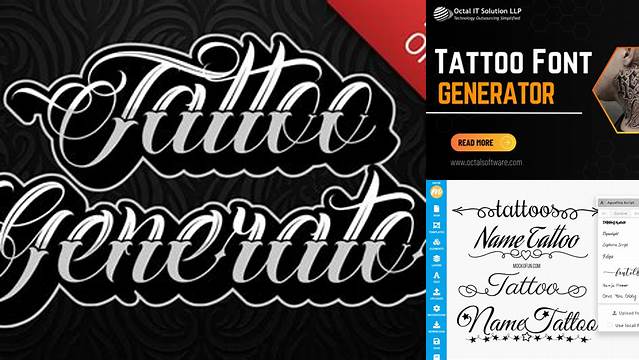
Best Free Tattoo Font Generator: Designs & Ideas
Hey guys! Finding the perfect tattoo font can be a real mission, right? You want something that screams you, that vibes with your personality, and, of course, looks killer on your skin. Luckily, you don't have to break the bank to find amazing options. There are tons of best free tattoo font generators out there that can help you visualize your ink dreams before you even step into the tattoo parlor. This article is your guide to navigating the world of free tattoo fonts, giving you the lowdown on where to find them, how to use them, and some creative ideas to get your inspiration flowing. So, buckle up and let's dive in!
Tattoo Font Generators: An Overview
Okay, so what exactly is a tattoo font generator? Basically, it's an online tool that lets you type in your desired text and then displays it in a variety of different fonts that are suitable for tattoos. Think of it like a virtual tattoo artist, letting you experiment with styles until you find the perfect match. Many best free tattoo font generators offer a wide range of font styles, from classic script to bold gothic, and even unique, hand-drawn styles. The best part? You can usually download the font image for free to show your tattoo artist. This ensures everyone is on the same page before the needle hits the skin. Plus, playing around with these generators is just plain fun! You can try out different names, quotes, or designs to see what resonates with you the most. It's a great way to get creative and explore your tattoo ideas without any commitment. So, get ready to unleash your inner artist and find the best free tattoo font for your next ink adventure! Why settle for ordinary when you can have extraordinary?
Free Tattoo Font Websites
Alright, let's talk about where to find these awesome best free tattoo font generators. There are several websites dedicated to providing a wide selection of tattoo-friendly fonts that you can use without spending a dime. Websites like DaFont, 1001 Free Fonts, and FontSpace are excellent resources. These sites have a vast library of fonts, many of which are specifically tagged or categorized as tattoo fonts. When browsing these sites, be sure to use keywords like "tattoo," "script," "gothic," or "tribal" to narrow down your search and find fonts that match your desired style. Always check the license of each font before using it commercially, just to be on the safe side. Most fonts are free for personal use, but some may require a license for commercial purposes. Each website offers a unique selection of fonts, so it's worth exploring multiple sites to find the perfect fit for your tattoo design. Many of these sites also allow you to preview the font by typing in your text, making it easy to see how your tattoo will look. So, start exploring and discover the endless possibilities for your next tattoo! Remember, the best free tattoo font is out there waiting to be found, so happy hunting!
Script Tattoo Fonts
Script fonts are a super popular choice for tattoos, especially for names, quotes, or meaningful phrases. There's something timeless and elegant about a beautifully written script. When choosing a script font, think about the overall vibe you're going for. Are you looking for something delicate and flowing, or something with a bit more edge and flair? Some popular script styles include calligraphy, cursive, and handwritten fonts. Calligraphy fonts tend to be very ornate and formal, while cursive fonts offer a more relaxed and approachable feel. Handwritten fonts, on the other hand, can range from playful and whimsical to sophisticated and refined. One of the best free tattoo font generator options for script fonts is Before the Rain. This font has a light touch and has thin lines that will require expertise from your tattoo artist. Honey Script is a fancy-looking font with heart details, making it one of the cutest choices if you want something fancy. No matter what style you choose, make sure the font is legible and easy to read, especially if your tattoo is small or intricate. The best free tattoo font should not only look good but also stand the test of time. So, take your time, experiment with different options, and find a script font that truly speaks to you!
Gothic Tattoo Fonts
For those who want to make a bold statement, gothic fonts are an excellent choice. These fonts are characterized by their strong, angular lines and often evoke a sense of mystery and power. Gothic fonts are perfect for adding a touch of drama and intensity to your tattoo design. They work well for single words, initials, or short phrases. When choosing a gothic font, consider the overall size and placement of your tattoo. Larger tattoos can handle more intricate and detailed gothic fonts, while smaller tattoos may require a simpler and more streamlined design. Some popular gothic styles include blackletter, old English, and medieval fonts. Blackletter fonts are known for their thick, heavy strokes, while old English fonts offer a more classic and refined look. Medieval fonts often incorporate ornate details and flourishes, adding a touch of historical flair. The best free tattoo font generator for this category might include fonts like Tribal, which is a classic choice that is also a perfect match for your tattoo. Ultimately, the best free tattoo font in gothic style will depend on your personal preferences and the overall aesthetic you're aiming for. So, explore different options and find a gothic font that truly captures your vision!
Old School Tattoo Fonts
Old school tattoo fonts are a nod to the classic designs that have been around for decades. These fonts are characterized by their bold lines, simple shapes, and timeless appeal. Old school fonts are perfect for adding a touch of nostalgia and authenticity to your tattoo design. They often feature elements like banners, ribbons, and nautical stars, which are iconic symbols of traditional tattoo art. When choosing an old school font, think about the overall theme and style of your tattoo. Some popular old school styles include traditional American, sailor jerry, and vintage circus fonts. Traditional American fonts are known for their clean, bold lines and classic lettering. Sailor Jerry fonts often incorporate nautical themes and imagery, while vintage circus fonts evoke a sense of fun and whimsy. To find the best free tattoo font generator for old school designs, you might check fonts such as VTC Letterer Pro, a font that brings up the classic vintage lettering and is known for its bold strokes. The best free tattoo font in old school style will add a touch of timeless appeal to your tattoo.
Calligraphy Tattoo Fonts
Calligraphy fonts bring a touch of elegance and artistry to your tattoo. These fonts are inspired by the art of beautiful writing and feature flowing lines, delicate strokes, and graceful curves. Calligraphy fonts are perfect for adding a personal and sophisticated touch to your tattoo design. They work well for names, quotes, or meaningful phrases that you want to express with style and flair. When choosing a calligraphy font, consider the overall size and placement of your tattoo. Larger tattoos can handle more intricate and elaborate calligraphy fonts, while smaller tattoos may require a simpler and more streamlined design. Some popular calligraphy styles include Spencerian, Copperplate, and Italic. Spencerian fonts are known for their elegant and flowing lines, while Copperplate fonts offer a more formal and refined look. Italic fonts provide a slanted and stylish appearance. Your best free tattoo font generator options will include ones that let you preview many calligraphy styles. The best free tattoo font in calligraphy style should not only look beautiful but also reflect your unique personality and taste.
Cursive Tattoo Fonts
Cursive fonts are a popular choice for tattoos, known for their flowing and connected letters that create a sense of movement and grace. These fonts are perfect for adding a personal and intimate touch to your tattoo design. Cursive fonts work well for names, quotes, or meaningful phrases that you want to express in a stylish and elegant way. When choosing a cursive font, consider the overall legibility and readability of the design. While some cursive fonts can be highly ornate and decorative, it's important to ensure that the letters are still clear and easy to understand. Some popular cursive styles include script, handwriting, and signature fonts. Script fonts offer a classic and timeless look, while handwriting fonts provide a more casual and personal feel. Signature fonts are designed to mimic the look of a handwritten signature, adding a unique and authentic touch. Find your best free tattoo font generator, and it should give you varied cursive font options, allowing you to see what feels best. The best free tattoo font in cursive should not only look beautiful but also convey your message clearly and effectively.
Tribal Tattoo Fonts
Tribal tattoo fonts are inspired by the ancient and traditional designs of various cultures around the world. These fonts often feature bold lines, geometric shapes, and intricate patterns that evoke a sense of strength, heritage, and connection to the earth. Tribal fonts are perfect for adding a unique and meaningful touch to your tattoo design. They work well for those who want to express their cultural roots, spiritual beliefs, or personal identity. When choosing a tribal font, consider the overall symbolism and meaning of the design. Different tribal patterns and symbols can represent different things, so it's important to choose a font that resonates with your values and beliefs. Some popular tribal styles include Polynesian, Maori, and Celtic fonts. Polynesian fonts often feature flowing lines and organic shapes, while Maori fonts are known for their intricate spirals and curves. Celtic fonts incorporate knotwork patterns and interlacing designs. A best free tattoo font generator should help you narrow down the tribal font that speaks to you. The best free tattoo font in tribal style should not only look visually striking but also carry a deep and personal significance.
Number Tattoo Fonts
Number tattoo fonts are a great way to commemorate dates, anniversaries, or significant numbers in your life. These fonts can be used to create a minimalist and meaningful tattoo design that holds personal significance. Number fonts come in a variety of styles, from classic and traditional to modern and contemporary. When choosing a number font, consider the overall aesthetic and style of your tattoo. Do you want something simple and understated, or something more bold and eye-catching? Some popular number styles include Roman numerals, block numbers, and handwritten numbers. Roman numerals offer a timeless and elegant look, while block numbers provide a more modern and industrial feel. Handwritten numbers can add a personal and intimate touch to your tattoo. With the best free tattoo font generator, you can customize the look of your numbers. The best free tattoo font should be stylish and meaningful.
Lettering Tattoo Fonts
Lettering tattoo fonts are the foundation of any text-based tattoo design. These fonts come in a wide variety of styles, from classic and elegant to bold and modern. Choosing the right lettering font is crucial for ensuring that your tattoo looks its best and conveys your message effectively. When selecting a lettering font, consider the overall size and placement of your tattoo. Larger tattoos can handle more intricate and detailed fonts, while smaller tattoos may require a simpler and more streamlined design. Some popular lettering styles include serif, sans-serif, and display fonts. Serif fonts feature small decorative strokes at the ends of the letters, while sans-serif fonts have a cleaner and more modern look. Display fonts are designed to be eye-catching and attention-grabbing. Your best free tattoo font generator should offer you many lettering options. The best free tattoo font should enhance the overall design.
Custom Tattoo Fonts
If you're looking for something truly unique and personalized, consider creating a custom tattoo font. Designing your own font allows you to express your individual style and create a tattoo that is one-of-a-kind. Custom fonts can be created using font design software or by collaborating with a professional designer. When designing a custom font, consider the overall theme and message of your tattoo. What kind of feeling or emotion do you want to evoke? What kind of style are you aiming for? Think about the shapes, lines, and curves that you want to incorporate into your font. Experiment with different ideas and techniques until you find a design that you love. While a best free tattoo font generator might not create a fully custom font, it can help you get inspiration. The best free tattoo font is one that’s uniquely yours.
Tattoo Font Styles
Exploring different tattoo font styles is a great way to discover the perfect look for your ink. Whether you prefer classic elegance, bold statements, or something in between, there's a font style out there that matches your personality and vision. From script and gothic to old school and tribal, the possibilities are endless. Take your time to browse through different styles and see what resonates with you. Consider the overall theme and message of your tattoo, and choose a font style that complements it perfectly. The best free tattoo font generator should offer a wide array of styles. The best free tattoo font will elevate your tattoo to the next level.
Tattoo Font Ideas
Need some inspiration for your next tattoo? Check out these creative tattoo font ideas: names of loved ones, meaningful quotes, inspirational words, important dates, personal mantras, song lyrics, book excerpts, movie lines, and inside jokes. The possibilities are truly endless. Consider the placement of your tattoo and choose a font that fits well within that space. Experiment with different font sizes and layouts to find a design that you love. The best free tattoo font generator can help you visualize your ideas. The best free tattoo font can transform a simple idea into a stunning piece of art.
Tattoo Font Design
The design of your tattoo font is just as important as the font itself. Consider the spacing, kerning, and leading of your letters to ensure that your tattoo is legible and visually appealing. Experiment with different font weights and styles to create a unique and eye-catching design. Think about adding decorative elements, such as flourishes, banners, or symbols, to enhance the overall look of your tattoo. The best free tattoo font generator can help you experiment with these elements. The best free tattoo font is one that’s been thoughtfully designed.
Matching Tattoo Fonts
Matching tattoos are a popular way to celebrate a special bond with a loved one, whether it's a friend, family member, or partner. When choosing matching tattoo fonts, consider a design that represents your shared connection and values. Think about using the same font for both tattoos, or choosing complementary fonts that work well together. Consider incorporating meaningful symbols or elements into your design to further personalize your matching tattoos. The best free tattoo font generator can help you find fonts that complement each other. The best free tattoo font can create a lasting symbol of your bond.
Small Tattoo Fonts
Small tattoos require careful consideration when it comes to font choice. Choose a font that is legible and easy to read, even when it's small. Avoid fonts with overly intricate or decorative details, as these may become blurred or illegible over time. Opt for simpler and more streamlined fonts that will stand the test of time. Consider the placement of your small tattoo and choose a font that fits well within that space. The best free tattoo font generator can help you find fonts that work well at small sizes. The best free tattoo font will make your small tattoo stand out.
Bold Tattoo Fonts
Bold tattoo fonts are a great way to make a statement and draw attention to your ink. These fonts are characterized by their thick, heavy strokes and strong visual presence. Bold fonts are perfect for adding emphasis to important words, phrases, or symbols in your tattoo design. When choosing a bold font, consider the overall size and placement of your tattoo. Larger tattoos can handle more dramatic and impactful bold fonts, while smaller tattoos may require a more restrained approach. The best free tattoo font generator can help you visualize how bold fonts will look on your skin. The best free tattoo font will ensure your message is heard loud and clear.
Legible Tattoo Fonts
Legibility is key when it comes to tattoo fonts. Choose a font that is easy to read and understand, even from a distance. Avoid fonts with overly stylized or decorative elements that may compromise readability. Consider the spacing, kerning, and leading of your letters to ensure that your tattoo is clear and easy to decipher. The best free tattoo font generator should prioritize legible font options. The best free tattoo font will communicate your message effectively.
Unique Tattoo Fonts
If you're looking for something different and eye-catching, consider using a unique tattoo font. These fonts are characterized by their unconventional shapes, unusual designs, and distinctive personalities. Unique fonts are perfect for expressing your individuality and standing out from the crowd. When choosing a unique font, consider the overall theme and message of your tattoo. Make sure that the font complements your design and enhances its overall impact. The best free tattoo font generator can introduce you to fonts you’ve never seen before. The best free tattoo font will make your tattoo truly special.
Downloadable Tattoo Fonts
Many best free tattoo font generators allow you to download the font files directly to your computer. This gives you the freedom to experiment with different font sizes, layouts, and designs using your own graphics software. Downloadable fonts are also useful for creating mockups and prototypes of your tattoo design. Be sure to check the license of each font before using it commercially, just to be on the safe side. The best free tattoo font is one that you can easily access and use.
Tattoo Font Generator Apps
In addition to online best free tattoo font generators, there are also several mobile apps available that offer a wide range of tattoo fonts and design tools. These apps allow you to create and preview tattoo designs directly on your smartphone or tablet. Some apps even offer augmented reality features that allow you to see how your tattoo will look on your skin in real-time. Tattoo font generator apps are a convenient and portable way to explore different font options and create your dream tattoo design. The best free tattoo font is now at your fingertips!
Tattoo Font Inspiration
Looking for some tattoo font inspiration? Browse through online tattoo galleries, social media platforms, and tattoo artist portfolios to find examples of tattoos that you love. Pay attention to the fonts that are used in these tattoos and consider how they might work for your own design. Don't be afraid to get creative and experiment with different font styles, layouts, and embellishments. The best free tattoo font generator combined with some good inspiration can lead to amazing results. The best free tattoo font is waiting to be discovered.
Using Tattoo Font Generators
Using a best free tattoo font generator is easy! Simply type in your desired text, choose a font style, and customize the design to your liking. Most generators allow you to adjust the font size, color, and spacing, as well as add decorative elements like borders, shadows, and outlines. Once you're happy with your design, you can download it as an image file and bring it to your tattoo artist. Using these tools is one of the best ways to find the best free tattoo font.
Choosing the Right Tattoo Font
Choosing the right tattoo font is a personal decision that depends on your individual style, preferences, and the overall message you want to convey. Consider the size, placement, and design of your tattoo when selecting a font. Opt for fonts that are legible, visually appealing, and that complement your tattoo design. Don't be afraid to experiment with different fonts and styles until you find the perfect match. The best free tattoo font generator is there to assist you in finding the best free tattoo font.
Tattoo Font Placement
The placement of your tattoo can greatly impact the overall look and feel of your design. Consider the size and shape of your tattoo when choosing a placement. Opt for areas of the body that are relatively flat and smooth, as these will provide the best canvas for your tattoo. Think about how your tattoo will interact with your body's natural curves and contours. The best free tattoo font will look even better with the right placement.
Working with a Tattoo Artist
Once you've found the best free tattoo font and have a clear idea of your design, it's time to consult with a professional tattoo artist. Your tattoo artist can provide valuable feedback on your design and help you make any necessary adjustments. They can also ensure that your tattoo is applied safely and professionally. Working with a skilled tattoo artist is essential for achieving the best possible results.
Finalizing Your Tattoo Design
Before you commit to getting your tattoo, take some time to review and finalize your design. Make sure that you're completely happy with the font, size, placement, and overall look of your tattoo. Consider creating a mockup or prototype of your design to see how it will look on your skin. Once you're confident that your design is perfect, schedule an appointment with your tattoo artist and get ready to bring your vision to life. After using the best free tattoo font generator, the next step is in the hands of your artist.
Taking Care of Your New Tattoo
After you get your tattoo, it's important to follow your tattoo artist's aftercare instructions carefully. This will help to ensure that your tattoo heals properly and looks its best for years to come. Keep your tattoo clean and moisturized, and avoid exposing it to direct sunlight or harsh chemicals. With proper care and maintenance, your new tattoo will be a source of pride and joy for many years to come. And remember, the best free tattoo font will continue to look great if you take good care of your tattoo!